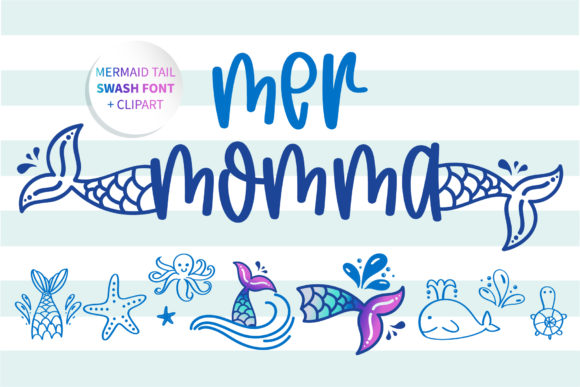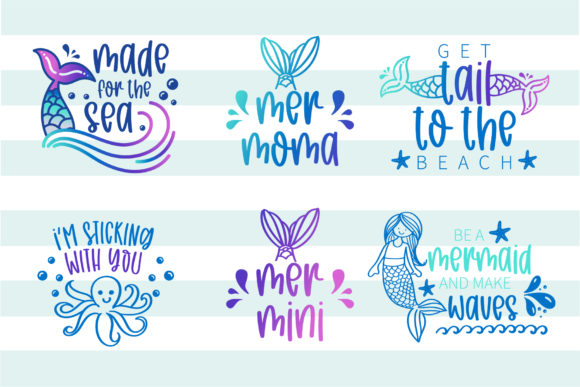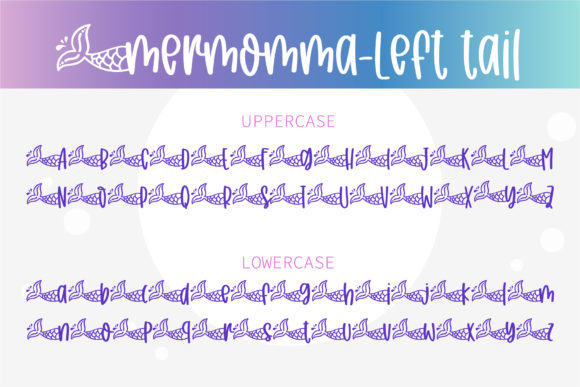
Mer Momma Font: A Cute Handwritten Font + Mermaid Clipart!
About the Mer Momma Font
Step up your design game with Mer Momma Font, a font that exudes confidence and style. Mer Momma is a sweet and friendly handwritten font. Its natural and unique style makes it incredibly fitting to a large pool of designs.
Mer Momma’s friendly, handwritten style works exceptionally well in projects requiring a personal touch, such as wedding invitations, greeting cards, social media graphics, or children’s book illustrations. Its charm also translates effectively to short-form branding elements like logos and packaging for artisan products. However, its informal nature makes it unsuitable for large blocks of body text or user interfaces where readability is paramount.
The slightly irregular letterforms make Mer Momma best suited for display purposes rather than extensive reading. To balance its playful energy, pair it with a clean sans-serif like Lato for body copy, or a more structured serif such as Playfair Display for a touch of elegance. For a more whimsical feel, consider pairing it with a script font like Great Vibes.
Mer Momma’s overall personality is best described as cheerful and approachable, making it ideal for brands that wish to project a warm, inviting, and slightly informal image.
Mer Momma Font Usage Examples
Mer Momma Font Example